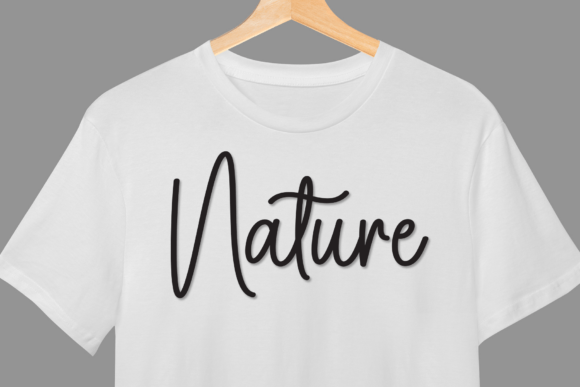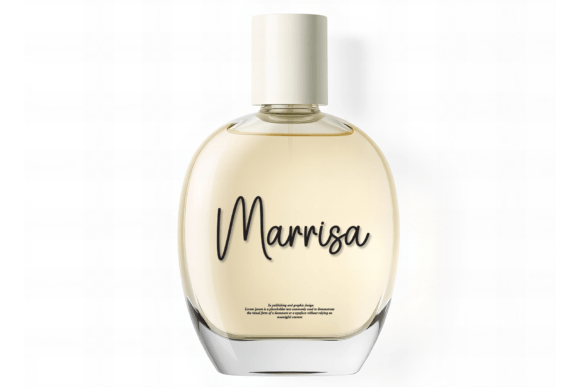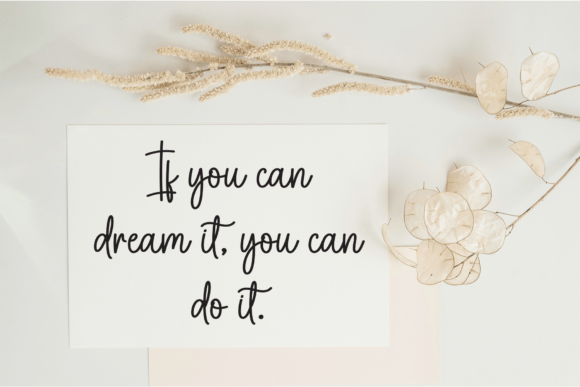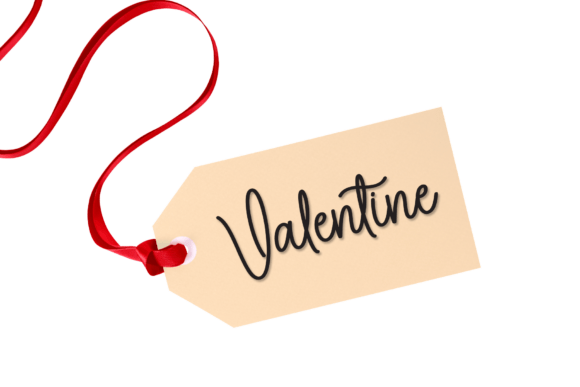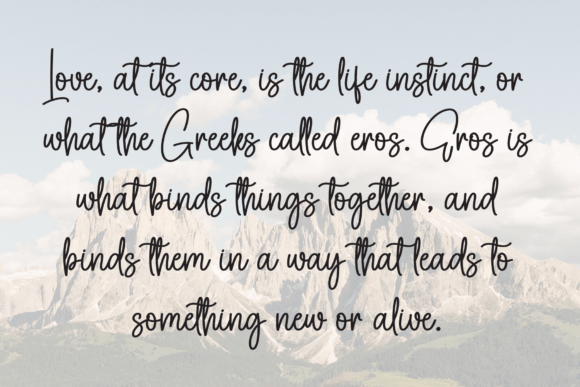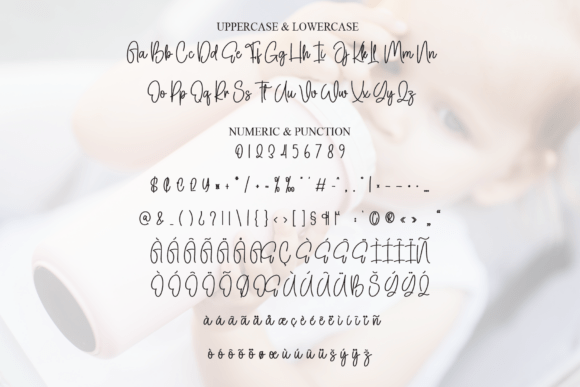
Baby Stanley Font: Elevate Your Designs with a Touch of Whimsy
Are you on the hunt for a font that adds a dash of personality to your creative projects? Look no further than the Baby Stanley Font, a delightful addition to your typography collection. This charming font is designed to bring a touch of whimsy to your designs, making it perfect for a wide range of applications, from wall displays and wedding invitations to social media posts and product packaging.
What Sets Baby Stanley Font Apart
The Baby Stanley Font is more than just a pretty face; it’s a versatile tool that can elevate your designs to new heights. Here are some of the key features that make this font a must-have for designers and crafters:
- Latest Style Letters: The Baby Stanley Font boasts the latest style letters that are sure to make your designs stand out. Its unique and playful aesthetic is perfect for adding a touch of personality to any project.
- Wide Range of Applications: Whether you’re working on wall displays, wedding invitations, social media post logos, advertisements, product packaging, product designs, labels, photography, watermarks, invitations, stationery, or any other project that requires tasteful handwriting, the Baby Stanley Font is the perfect choice.
Why Designers and Crafters Love Baby Stanley Font
The Baby Stanley Font has quickly become a favorite among designers and crafters, and it’s easy to see why. Here are just a few reasons why this font is a must-have for anyone who loves to create:
- Unique and Playful Aesthetic: The Baby Stanley Font has a unique and playful aesthetic that’s perfect for adding a touch of personality to any design. Its whimsical feel makes it ideal for projects that require a dash of creativity and flair.
- Versatility: The Baby Stanley Font is incredibly versatile, making it suitable for a wide range of applications. Whether you’re working on a wedding invitation or a product label, this font is sure to make your design stand out.